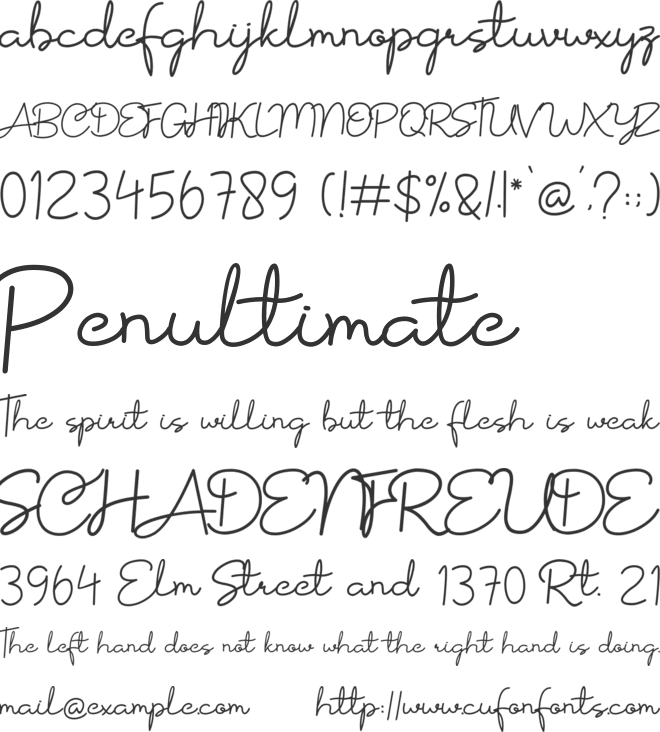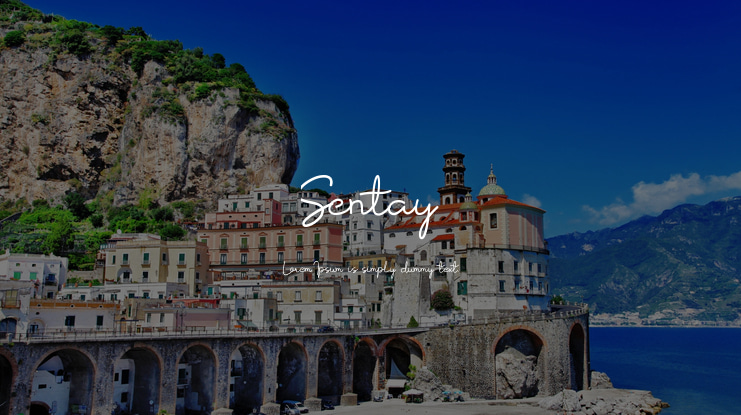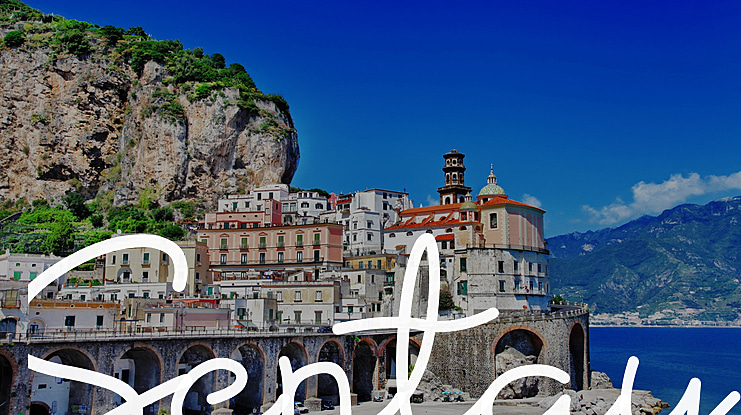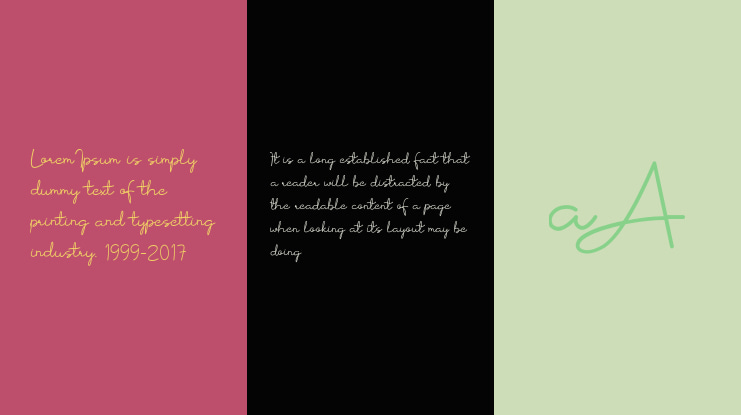
Sentay Font
- Sentay is a elegant signature monoline. Sentay is perfect for branding projects, logo, wedding designs, social media posts, advertisements, product packaging, product designs, label, photography, watermark, invitation, stationery and any projects that need handwriting taste. - This font is DEMO VERSION and ONLY for PERSONAL USE. NO COMMERCIAL USE ALLOWED! - PURCHASE FULL VERSION =>> https://graphicriver.net/item/sentay/25024626 <<= - Any donation are very appreciated. Paypal account for donation: paypal.me/MultypeStudio - Follow our instagram for update @multypestudio - If you need a custom license please contact us at  - Hope you enjoy with our font!